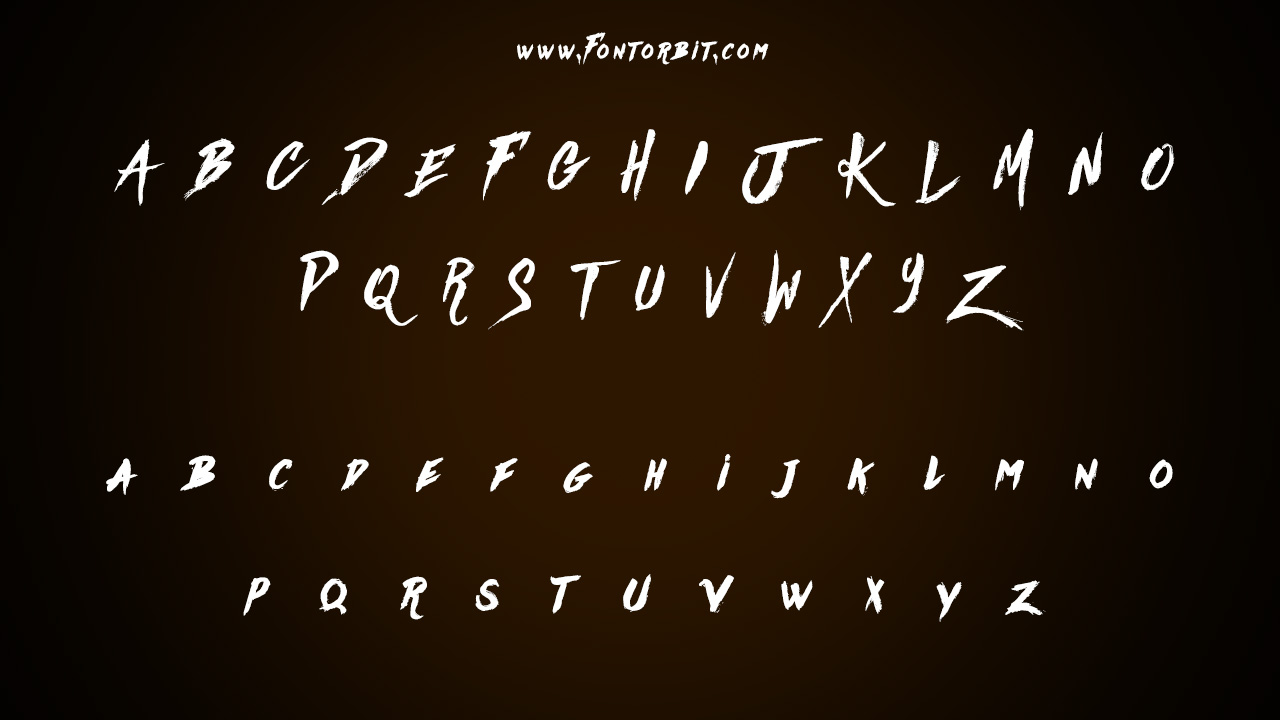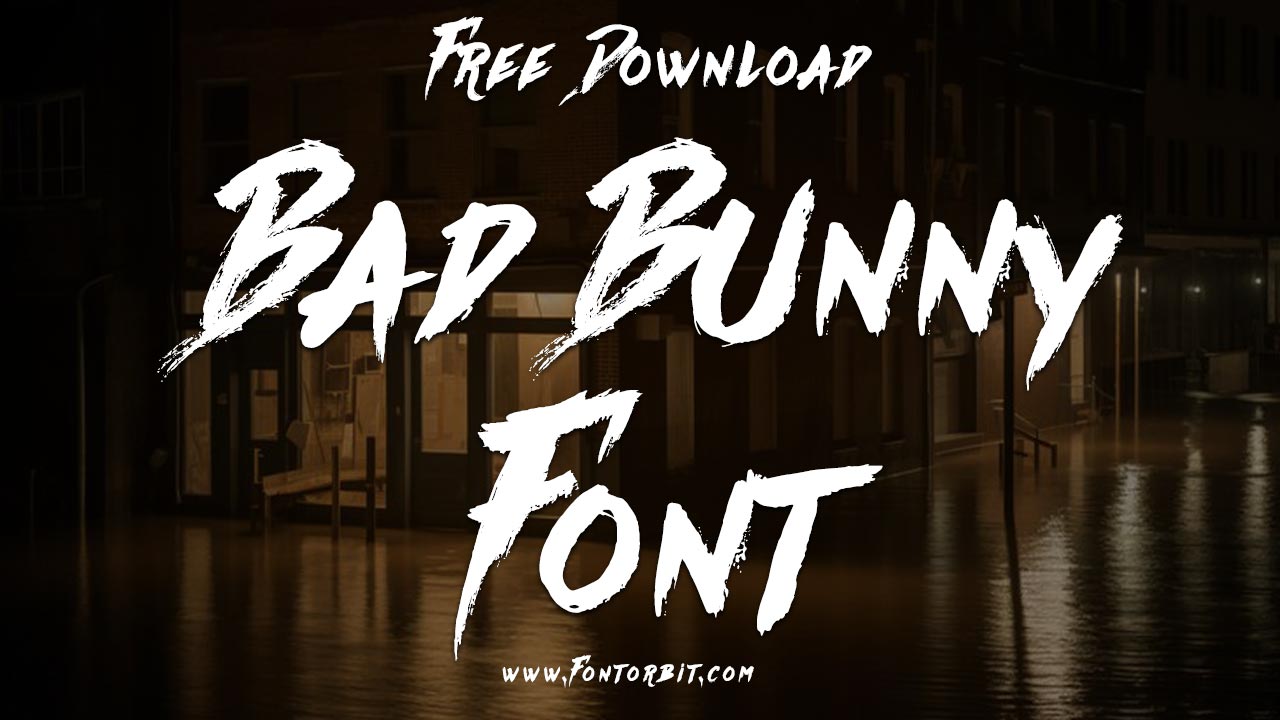
The Bad Bunny Font is a stylish and modern typeface designed by Ramandhani Nugraha. This font, designed for fans and graphic artists alike, captures the dynamic and edgy spirit of the music world, perfect for any project that seeks to evoke the same energy.
While the font doesn’t have a specific designer or publication date widely recognized, it fits seamlessly within the display font family known for its bold, eye-catching designs.
The Bad Bunny Font family offers a versatile range of styles that maintain a modern yet urban appeal. Each variation reflects different aspects of Bad Bunny’s unique persona, combining bold strokes with artistic flair.
These styles enable designers to use the font across various creative projects, from logos to posters, social media graphics, or album covers. Each variation is imbued with the font’s signature rebellious, expressive style.
| Style: | Brush |
Notable Uses Of The Bad Bunny Font:
The Bad Bunny Font is widely recognized and utilized in various artistic contexts, primarily associated with the music, fashion, and entertainment industries. Its bold, graphic nature makes it ideal for use in:
- Album covers
- Event posters
- Streetwear branding
- Social media designs
- Merchandise for musicians and bands
The Bad Bunny Font is perfect for projects that require a striking, modern aesthetic. You can use it in:
- Music-related graphics
- Social media branding
- Logos and branding
- Streetwear
The Bad Bunny Font is an excellent choice for those seeking to incorporate a bold, music-inspired aesthetic into their projects. With its varied styles and widespread uses, it stands out as a versatile option for anyone in the creative field.
Whether you’re designing a music poster or creating branded social media content, the Bad Bunny Font will add a touch of personality and flair to your work.
It’s a bold, modern display font.
It depends on your brand image. It’s great for bold, modern, and youthful brands.
Yes, it’s particularly effective for posters, album covers, and apparel designs.